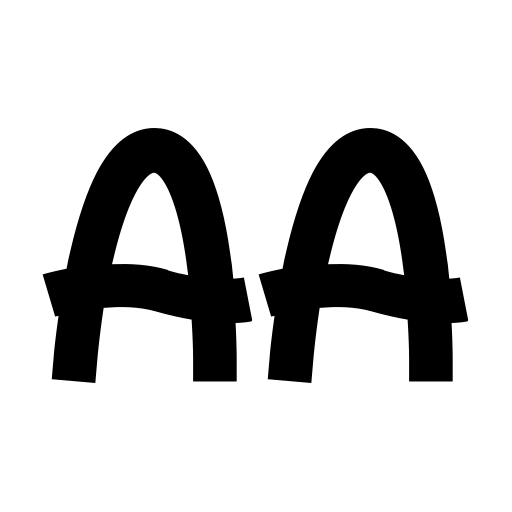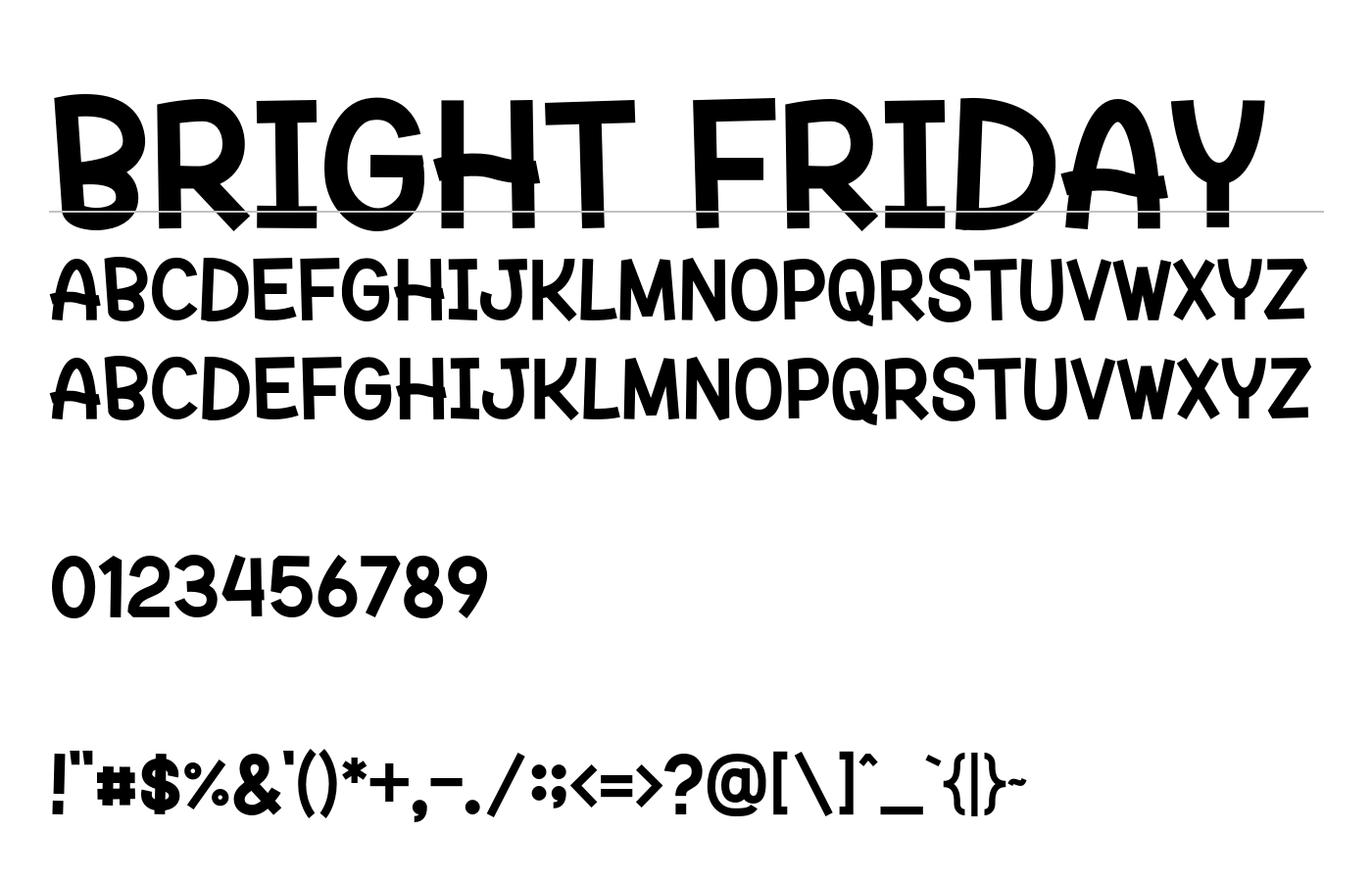
Bright Friday is a fun and playful sans serif font that features bold, slightly irregular characters with a handmade feel. Its lively, casual style and uneven baseline make it ideal for projects that want to convey cheerfulness and creativity, such as children's books, party invitations, or quirky branding. This font works best in headlines and logos where a friendly, approachable vibe is desired.
Bright Friday Font
About Bright Friday Font
| Font family | Bright Friday Font |
| Designer | Mukhlis Muhammad |